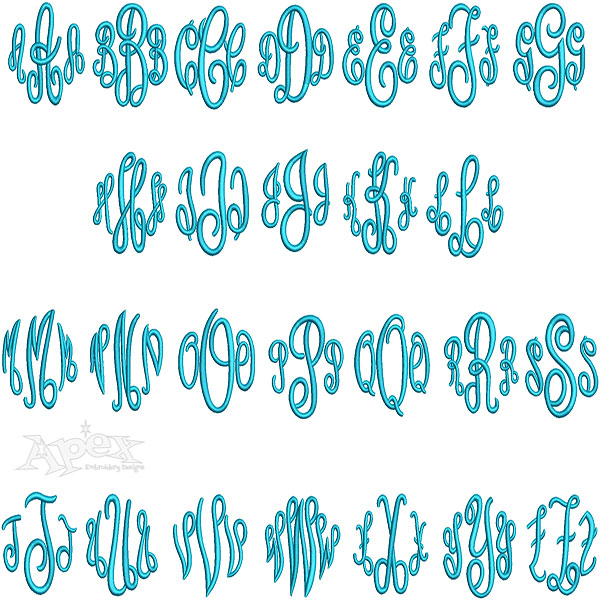
Empire Monogram Embroidery Font
Embroidery Fonts Oval Diamond Set. Set includes middle, left and right letters. Great 3 initial monogram set. This font looks like our #10 but different view both. 2 Sizes: 3.50" middle letter right & left are smaller, 2.50" middle letter right & left are smaller